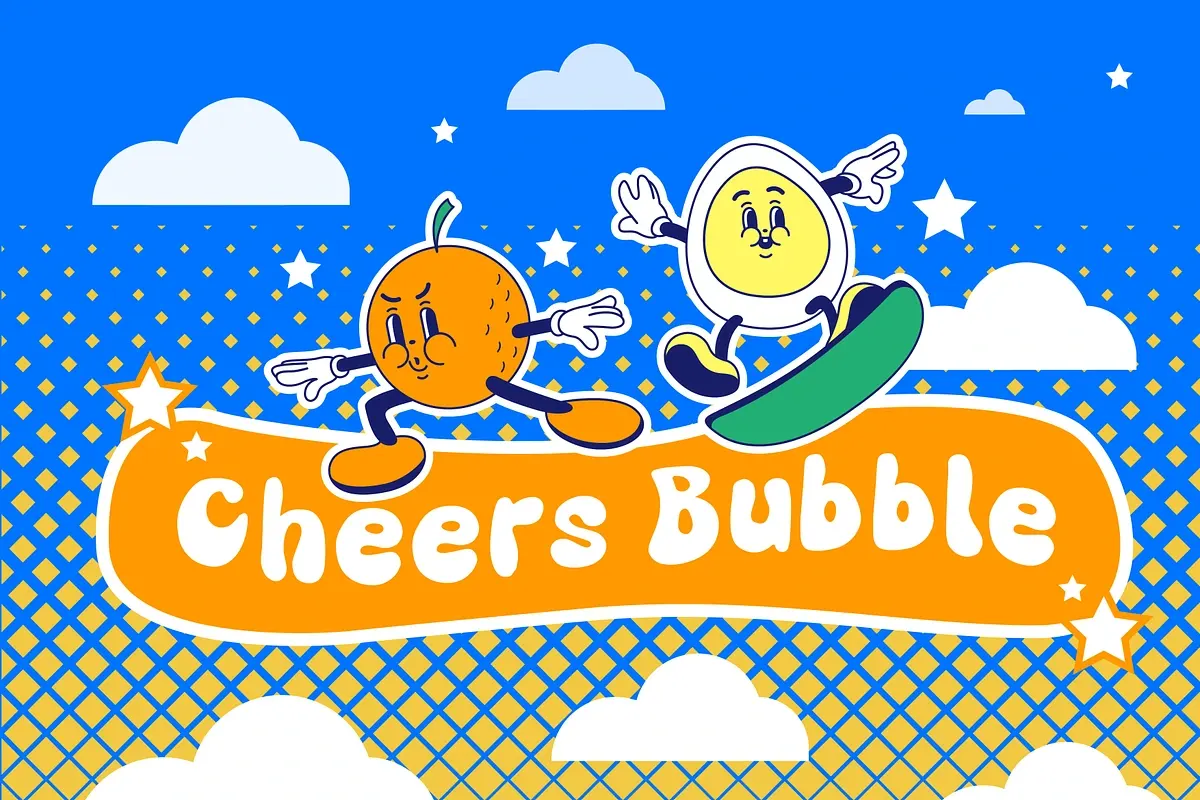
Cheers Bubble Font Free Download is a playful and bouncy typeface that brings bubbly fun and joyful energy to your designs. With its rounded shapes, inflated letterforms, and cheerful personality, this font is perfect for party invitations, kids’ designs, birthday cards, product packaging, and anything that needs a lighthearted, festive vibe.
The font mimics the look of balloon or bubble letters, making it a standout choice for colorful, happy projects that aim to capture attention and spread positivity. Whether you're creating social media posts or custom merch, Cheers Bubble adds a friendly, feel-good tone to your typography.
Celebrate your creativity with the fun, puffy flair of Cheers Bubble!